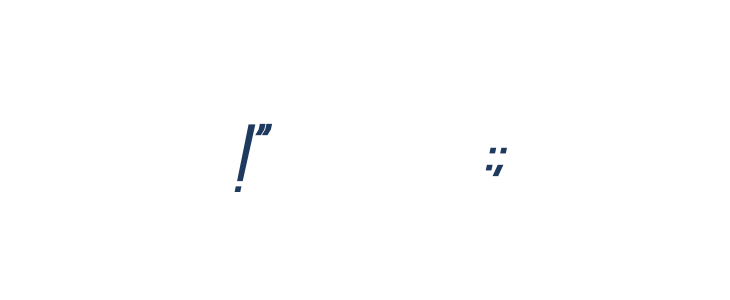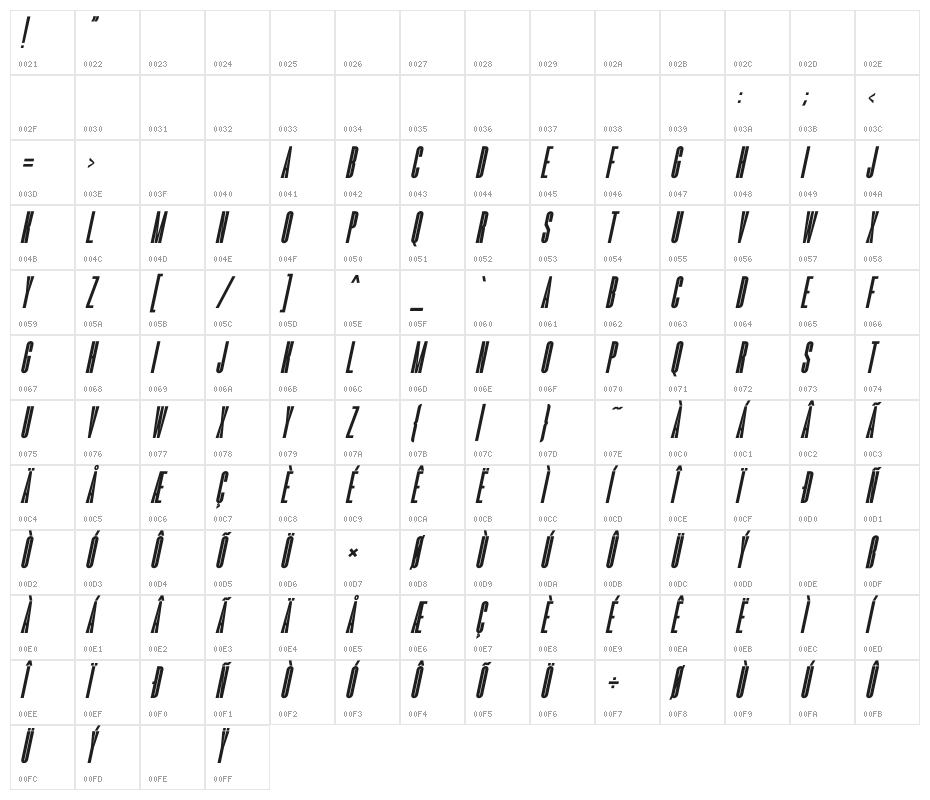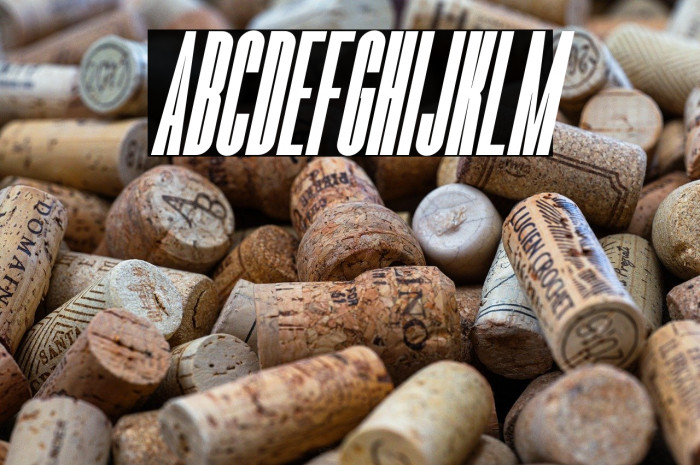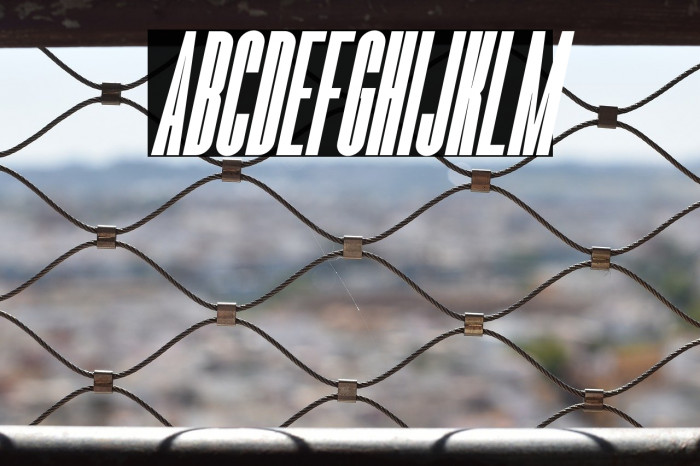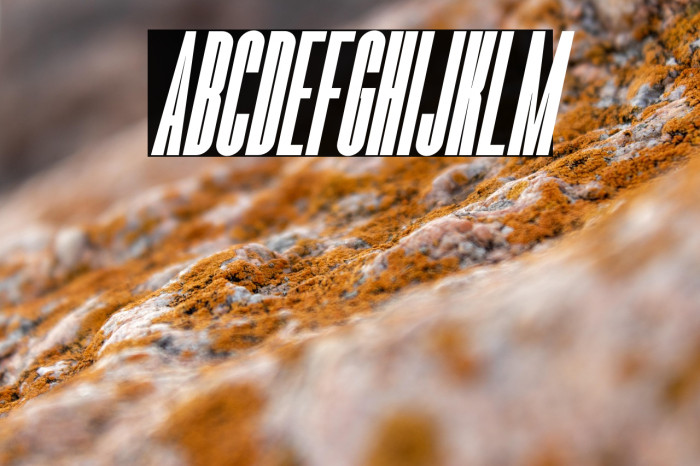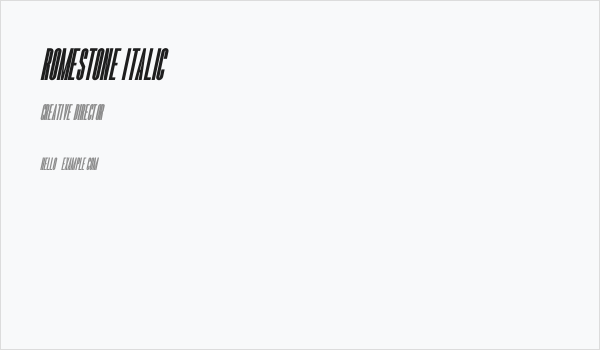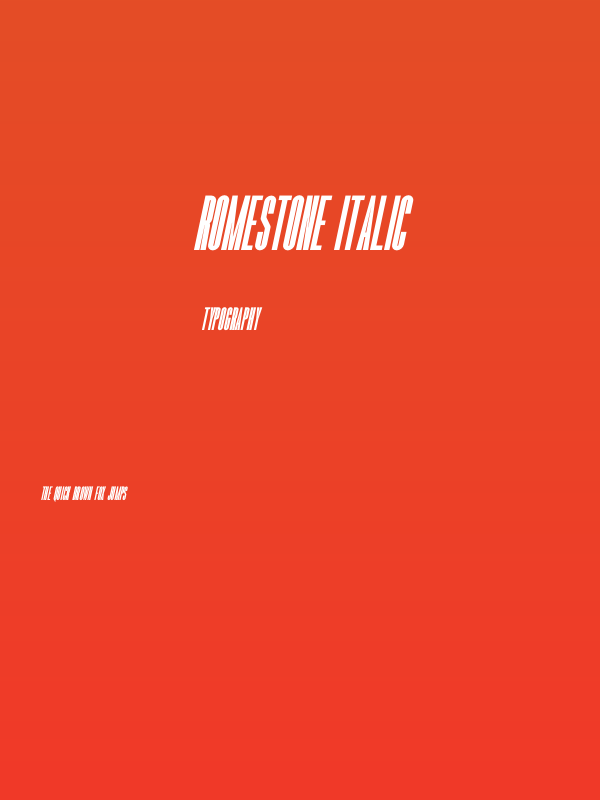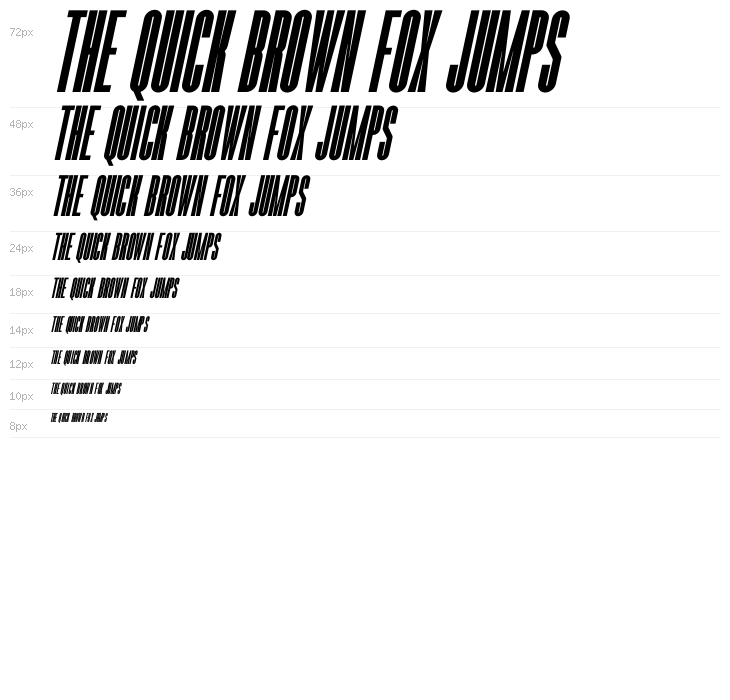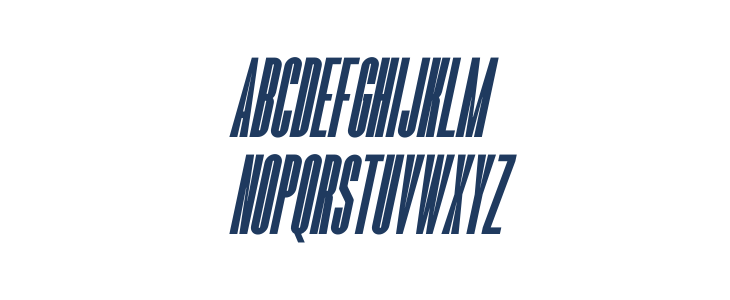
Romestone Italic Font
Romestone Italic Description
This font features a bold, italicized style with a strong, dynamic presence. The characters are tightly spaced and elongated, giving a sense of movement and urgency. The uppercase and lowercase letters maintain a consistent slant, enhancing the italic effect. The strokes are thick and uniform, contributing to a high contrast appearance. Its design is modern and assertive, making it suitable for impactful headlines and attention-grabbing text. The font's sleek and streamlined form is ideal for projects that require a bold statement.
| Use Case | Headlines |
| Proposed Projects | Ideal for advertising campaigns, sports branding, dynamic posters, and modern editorial design. |